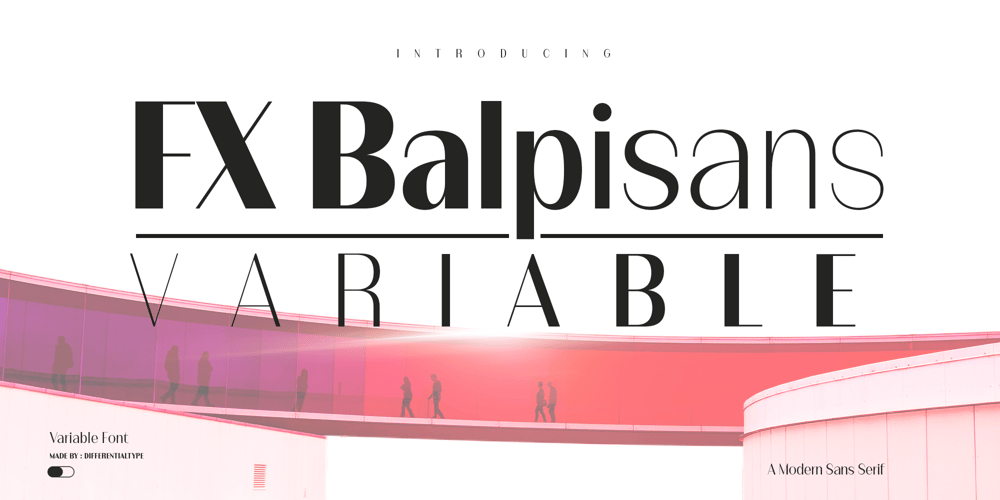
FX Balpisans Variable Font Family was designed by Sidik Sidik and published by Differentialtype. FX Balpisans Variable contains 1 styles and family package options. Introducing FX Balpisans Variable, a variable font that beautifully combines contrasting letter weights. With versatile styles, FX Balpisans Variable creates a harmonious balance between thin and thick strokes, giving it an elegant and luxurious feel. The font’s ability to blend seamlessly in various weights makes it a perfect choice for a variety of projects. Whether designing a product brand, embellishing a logo, creating a book cover or invitation card, beautifying social media posts, enhancing brochures, or simply using it to type documents, FX Balpisans Variable adds a touch of sophistication to all your creative endeavors.